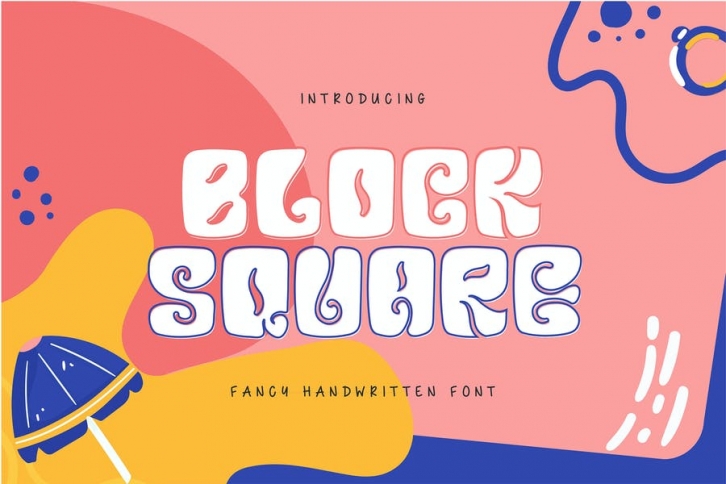
Block Square | Fancy Handwritten Font with a calligraphy style, So beautiful on invitation like greeting cards, branding materials, business cards, quotes, posters, and more!
- Alternates and Ligatures